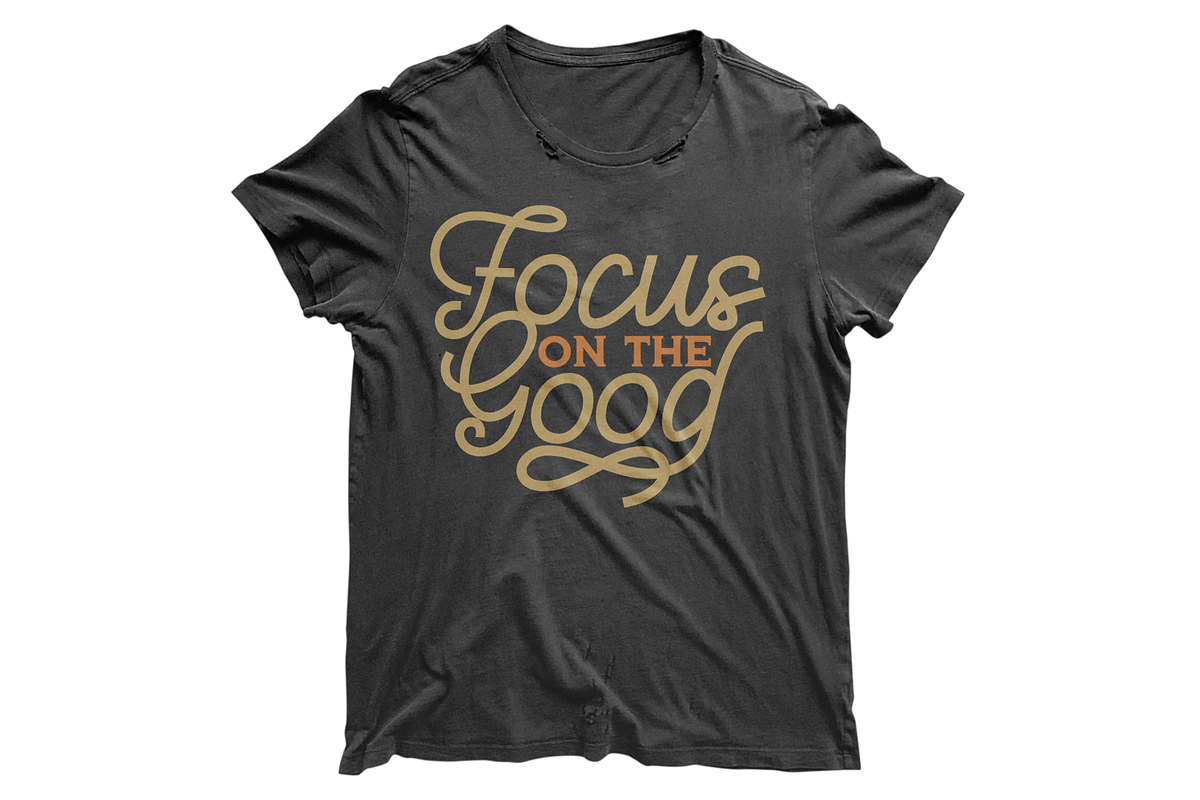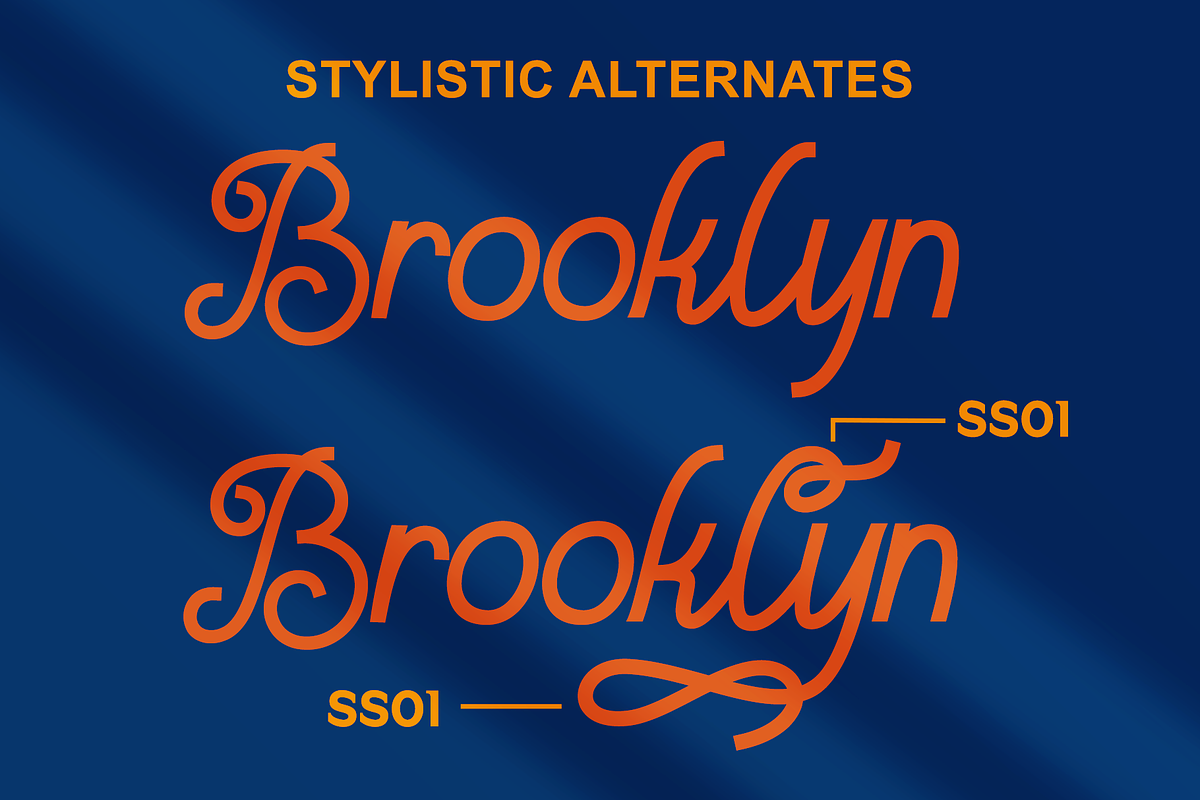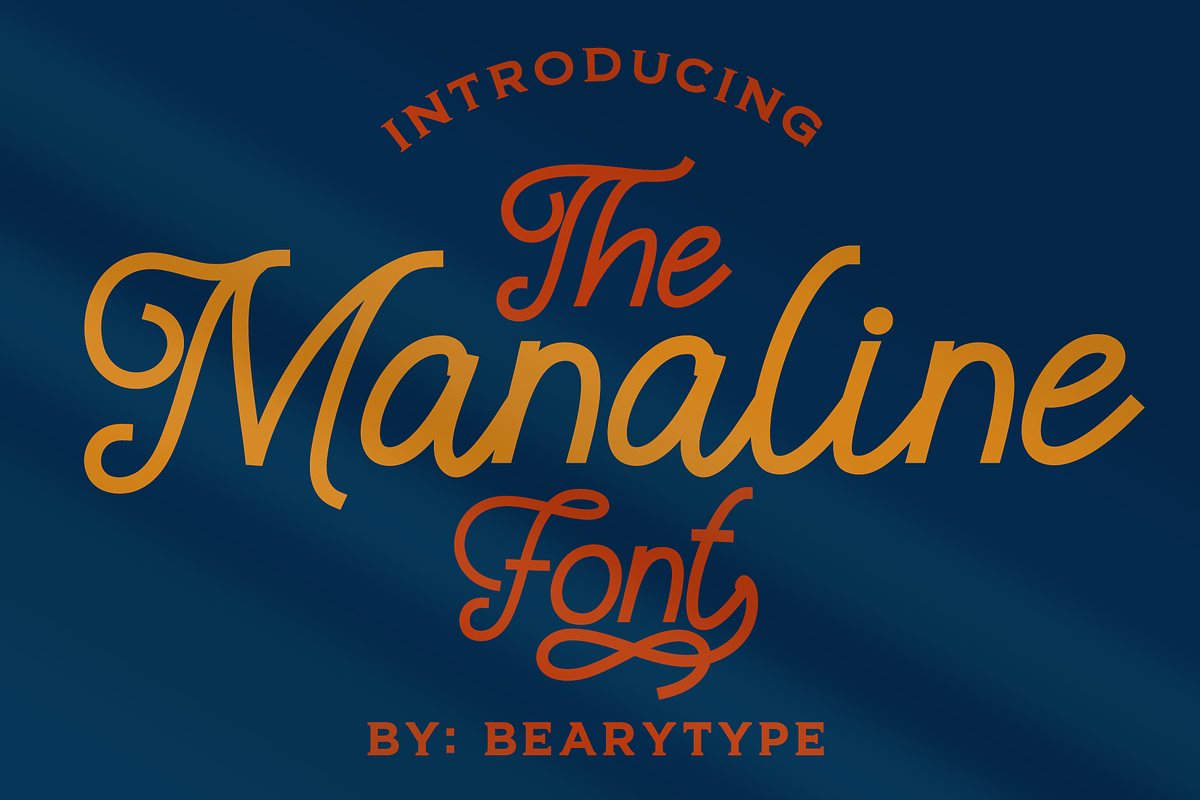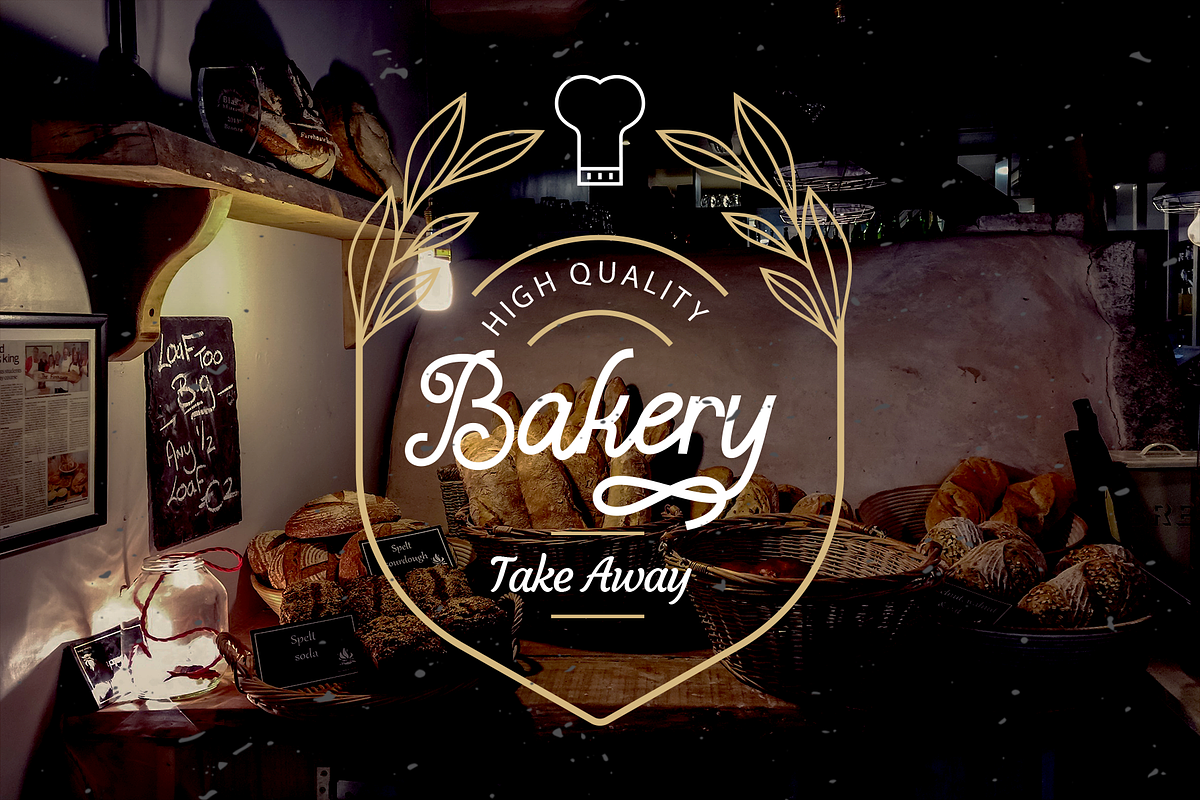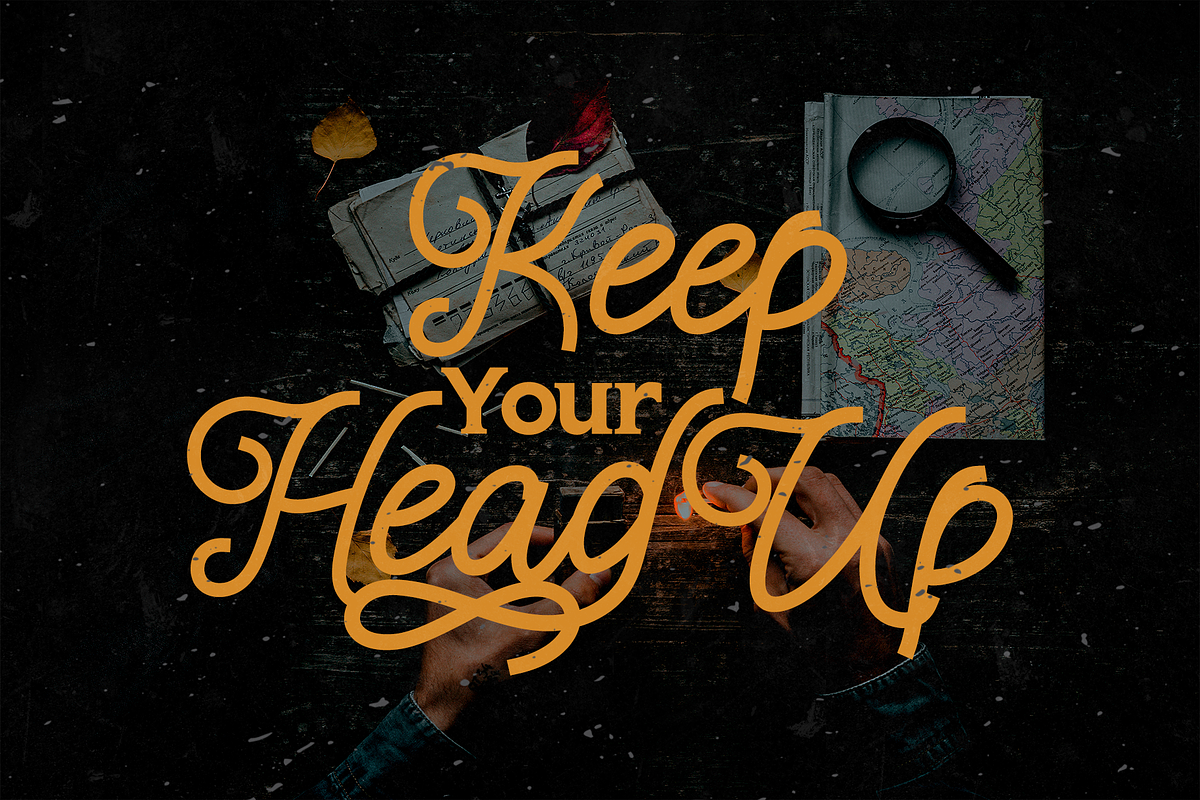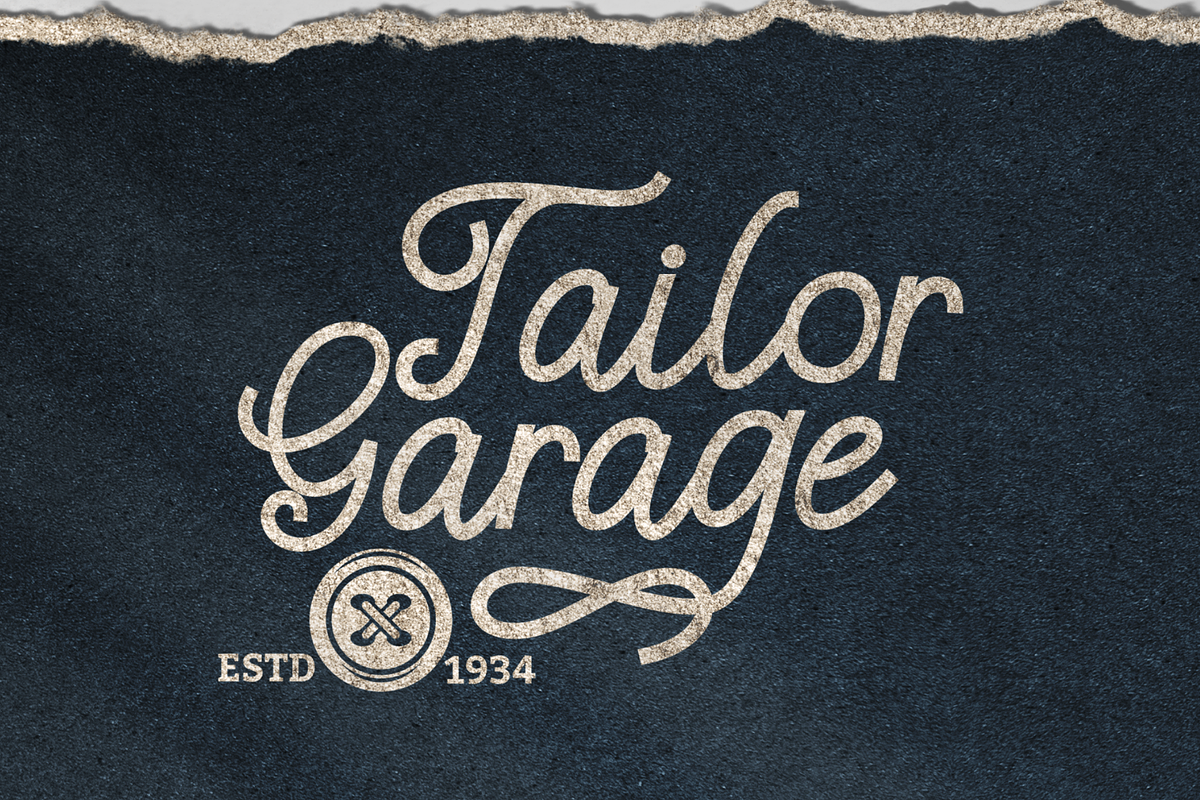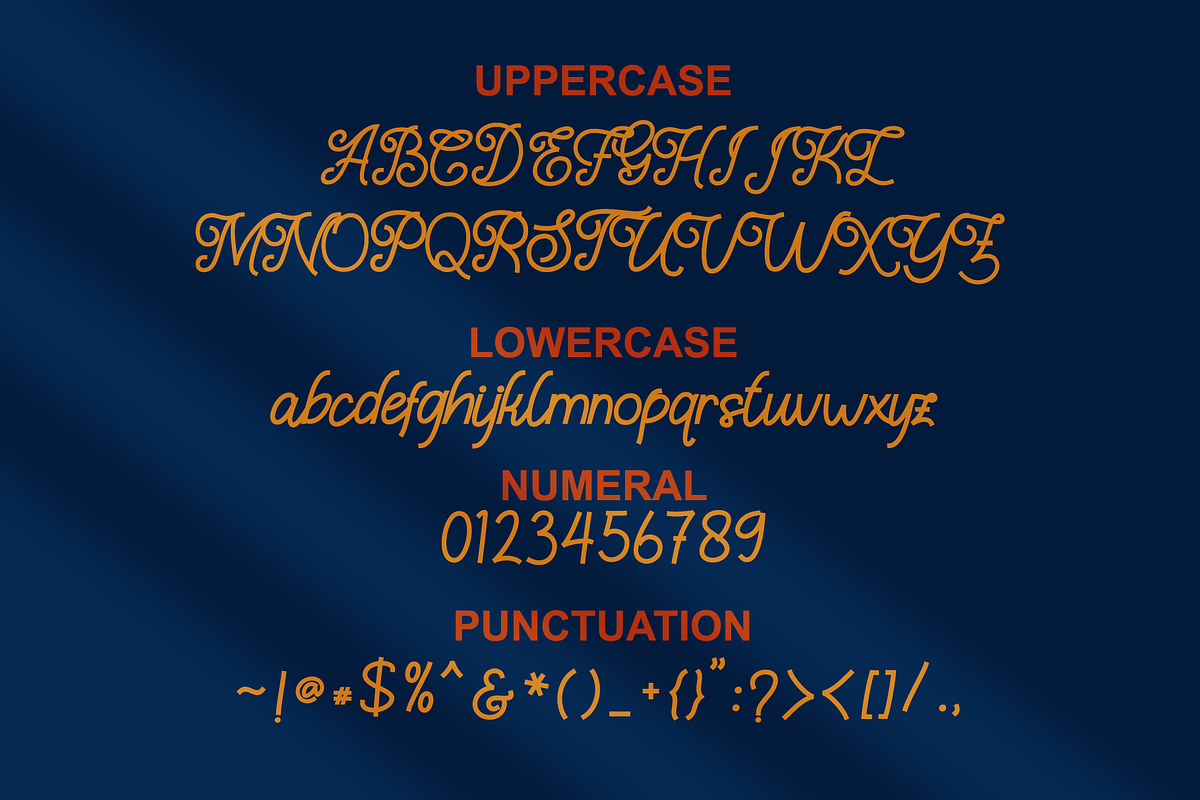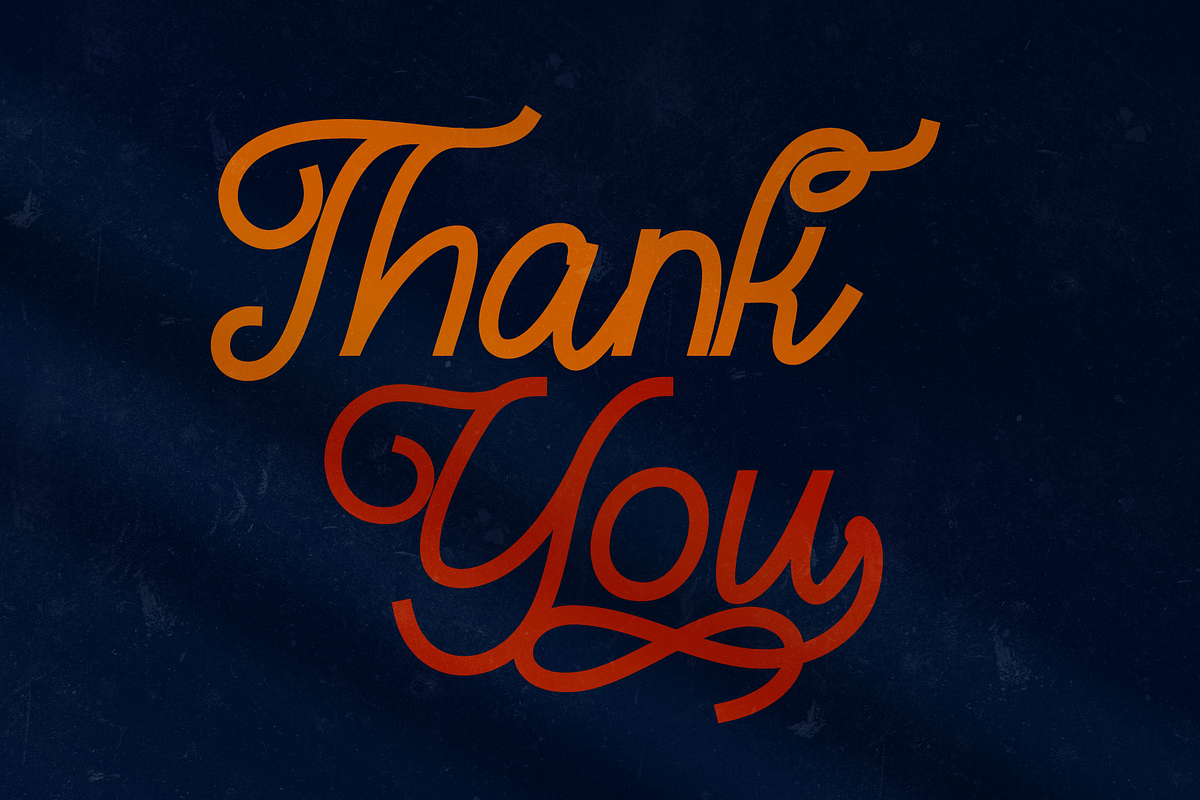
The Manaline Font
Introducing, The Manaline Font. Amazing hand lettering look attractive and natural! Every single letters have been carefully crafted to make your text looks beautiful. This font includes over 233 glyphs, including over 30 alternate characters with swashes. It has over 60 extended Latin characters for language support.
This font is suitable for invitation, branding, advertising, classic design, poster design etc, and also this font is PUA encoded so all characters are accessible via Character Map, Font Book, or the font management program of your choice.
The Manaline Font by BearyType Studio fits naturally into Branding, posters, packaging, typography.